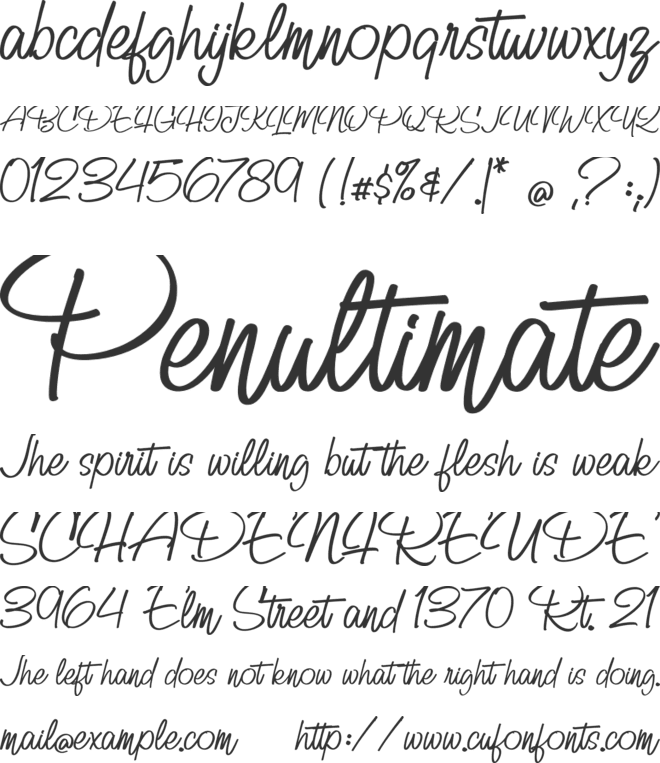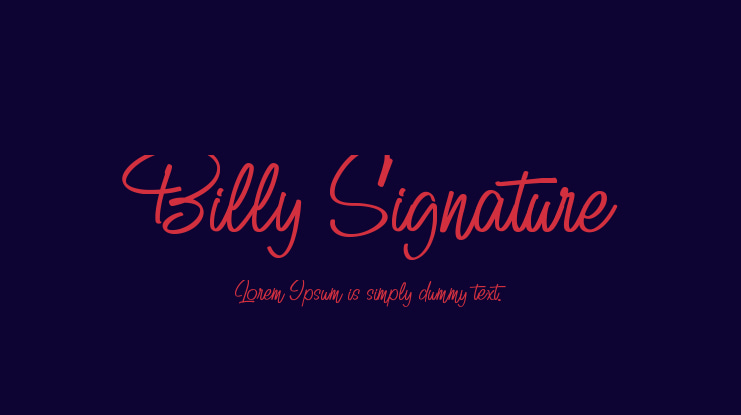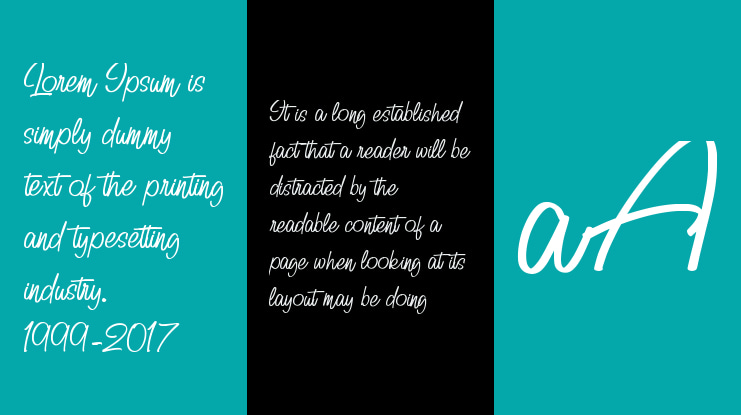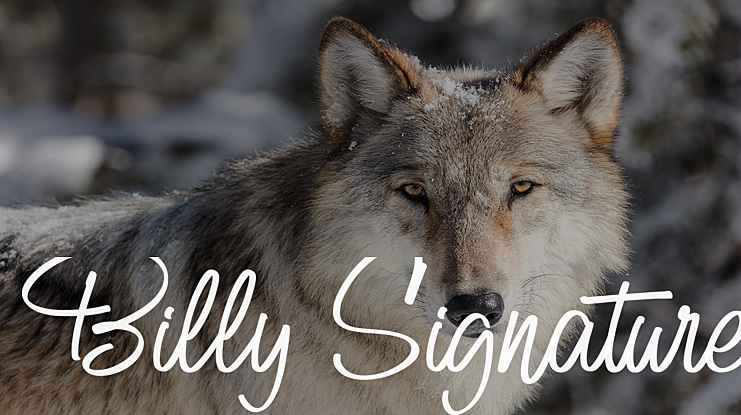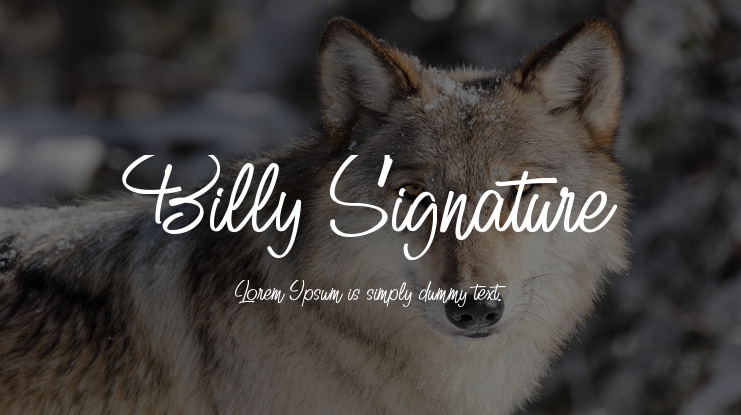
DETAILS Billy Signature! An authentic brush font with 2 styles, regular and slant. Billy Signature font is suitable for branding, logotype, apparel, T-shirt, Hoodie, product packaging, quotes, flyer, poster, advertising, etc.
Whats Include? 1. Uppercase and lowercase characters 2. Multilingual support. 3. Numerals, punctuations, and ligatures 4. Accessible in the Adobe Illustrator Glyphs panel, or under Stylistic Alternates in the Adobe Photoshop OpenType menu, Adobe InDesign, Corel Draw, even work on Microsoft Word.